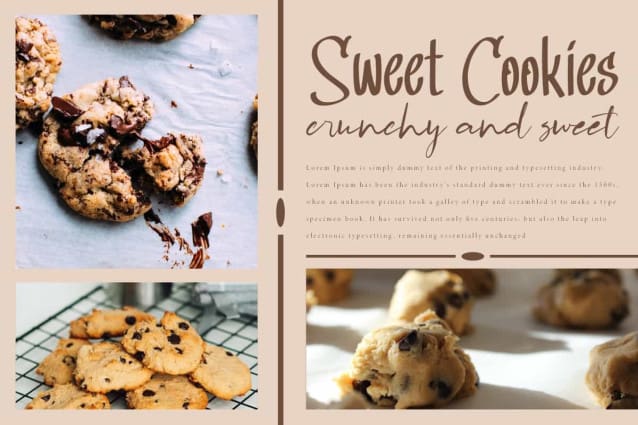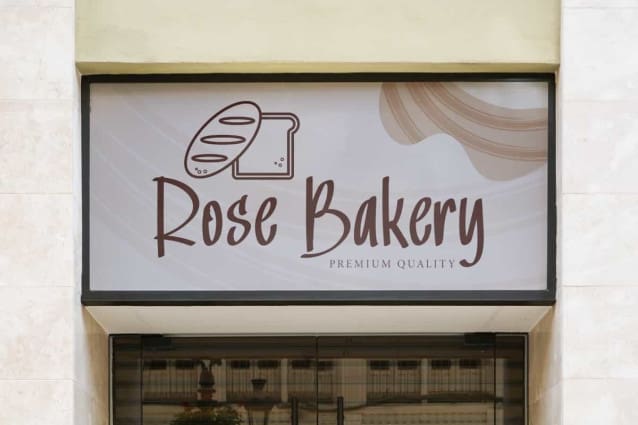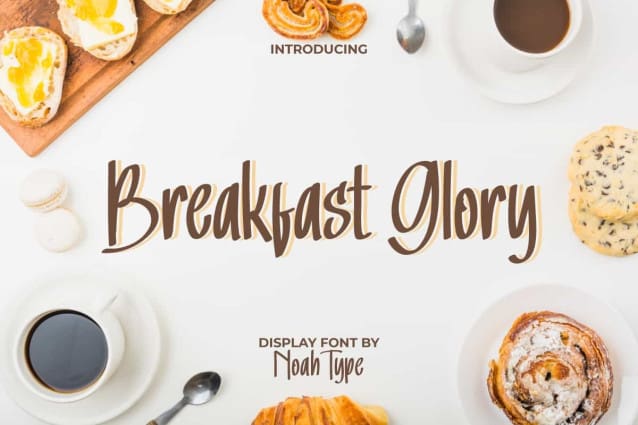
Breakfast Glory Font
Breakfast Glory Font is a stylish display font with modern handwriting look. This font has a perfect letter thickness combined with a simple shape but still stylish. It will be perfect for any designs, such as brand image, custom design, invitation, label, marketing material, menu, poster, product packaging, quotes, signage, stationery, web, and many more!
Breakfast Glory Font includes full set of Uppercase and Lowercase Basic Characters, Numerals, Punctuation, and Symbol. This adorable font will be perfect choice for many industries, such as advertising, bakery and pastry, cafe, event or festival, furniture, photography, printing, publishing, etc.